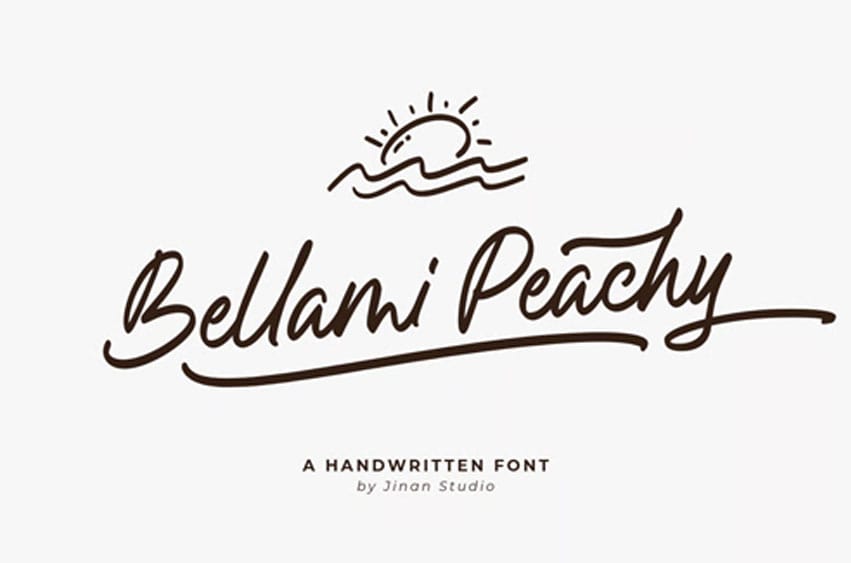
Bellami Peachy Font is a smooth and expressive handwritten font with a natural flow and effortless charm. Designed with fluid strokes and a stylish baseline, this script captures the warmth of personal lettering while maintaining a polished, modern feel. Its graceful swashes and relaxed curves make it perfect for branding, logos, packaging, social media quotes, wedding stationery, and lifestyle projects.
With its organic rhythm and friendly character, Bellami Peachy brings a touch of sunshine and authenticity to every design. Whether you’re creating a coastal-inspired brand, a feminine logo, or heartfelt typography artwork, this font delivers elegance with a casual twist.
- A set of uppercase and lowercase glyphs
- Number, symbol, and punctuation
- Alternates, ligatures, and swashes